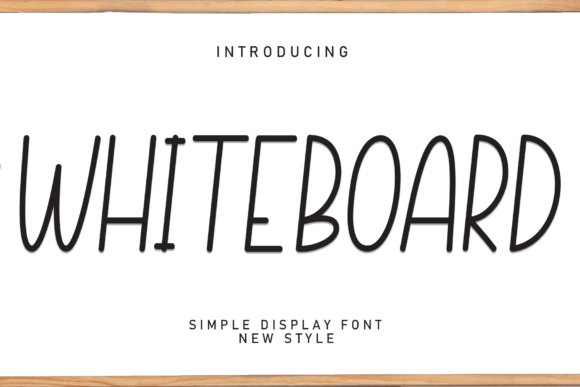
Step into a world of captivating visual expression with Whiteboard Font, a hand-crafted script typeface that embodies the essence of casual elegance. Inspired by the charm of handwritten text on a whiteboard, this font exudes a relaxed and inviting vibe, evoking a sense of authenticity and connection.
Picture your designs exploding with personality, as Whiteboard Font's organic strokes and charming imperfections engage your audience on a deeper level. It's the perfect companion for presentations, educational materials, and projects that seek a friendly and relatable aesthetic.
With its versatility, the Whiteboard Font effortlessly adapts to a wide array of applications. Fashion enthusiasts can embrace its inherent style to create captivating logos, branding elements, and social media graphics. Educators and students can harness its power to craft dynamic presentations, worksheets, and educational resources that ignite creativity and knowledge.
Beyond the realm of education and fashion, Whiteboard Font seamlessly blends into the world of art and design. Illustrators can infuse their creations with a touch of whimsy and charm, while designers can craft logos, branding materials, and website designs that radiate a genuine and approachable aura.
But the true magic of Whiteboard Font lies in its ability to foster connection. Its handwritten strokes create a sense of intimacy and relatability, drawing your audience into your message with a warmth that resonates. Your words will come alive, captivating hearts and minds as they engage with the authenticity and charm of handwritten text.
Unleash your creativity and embrace the beauty of imperfection with Whiteboard Font. Its versatility, casual elegance, and ability to forge connections make it the ideal choice for those seeking to elevate their designs and leave a lasting impression.